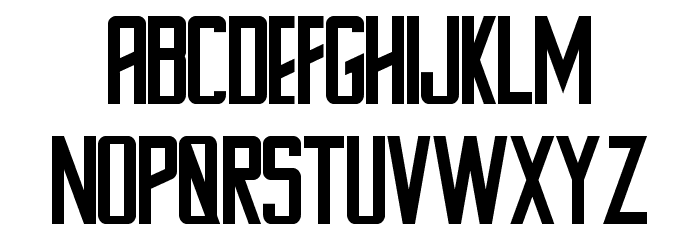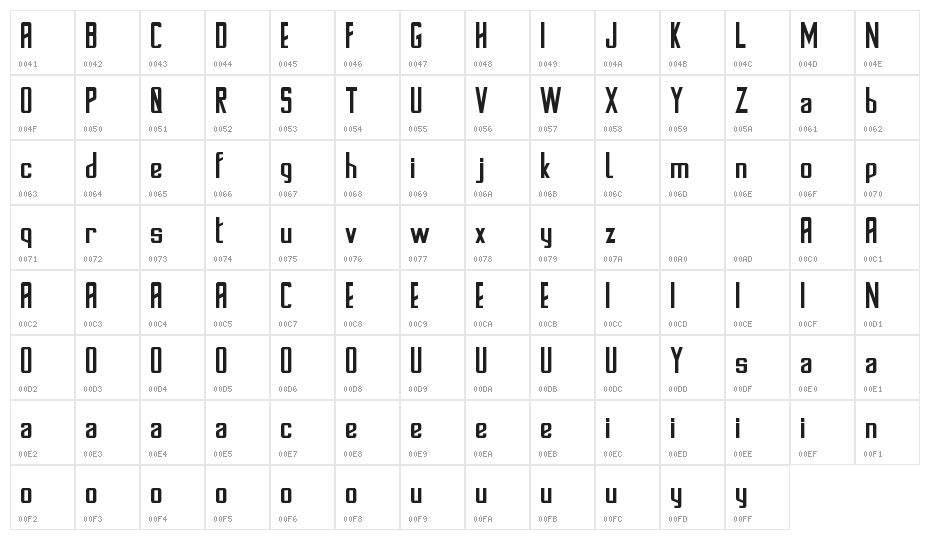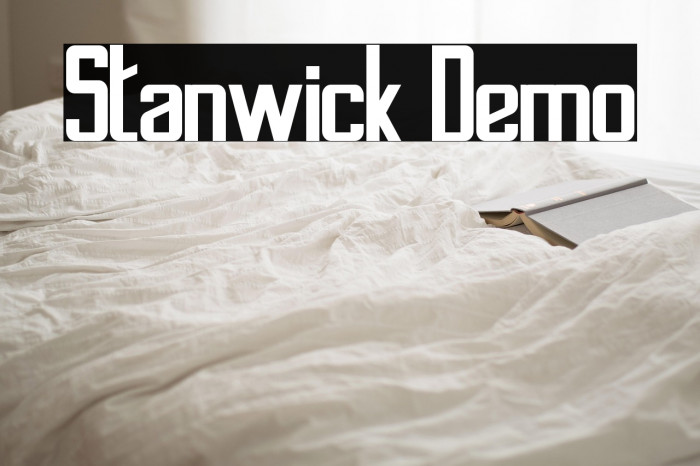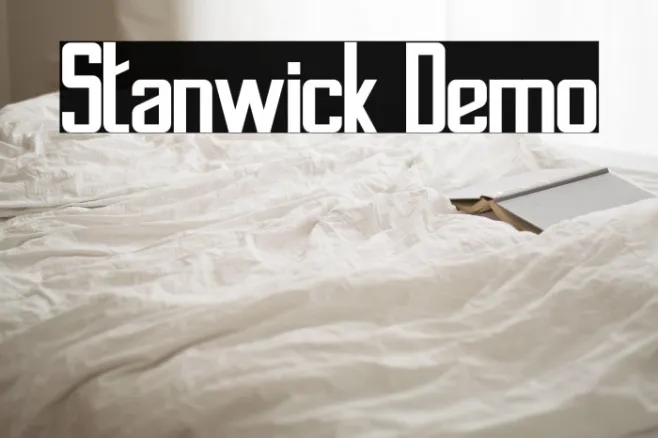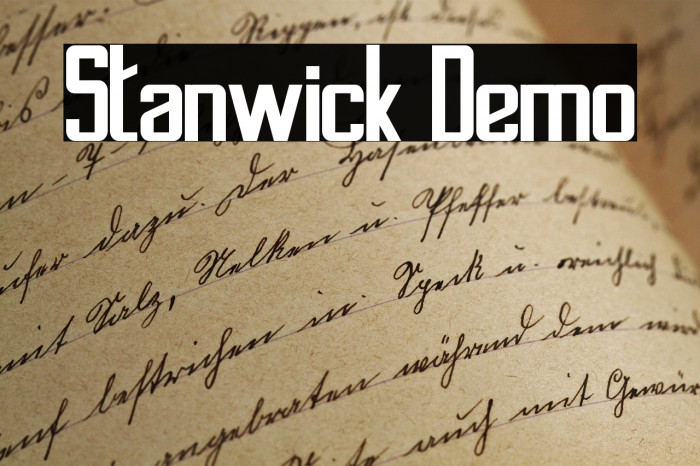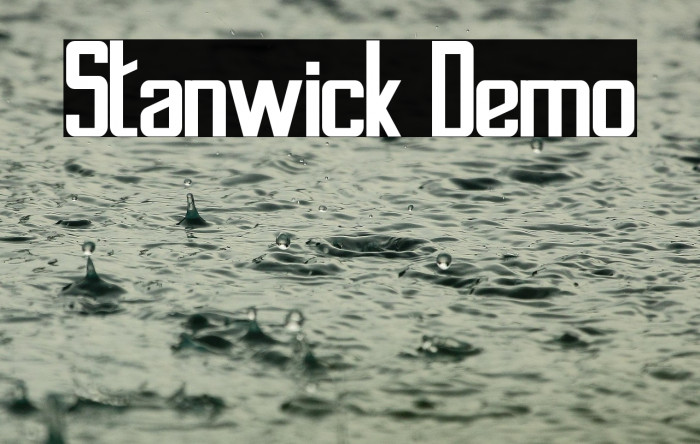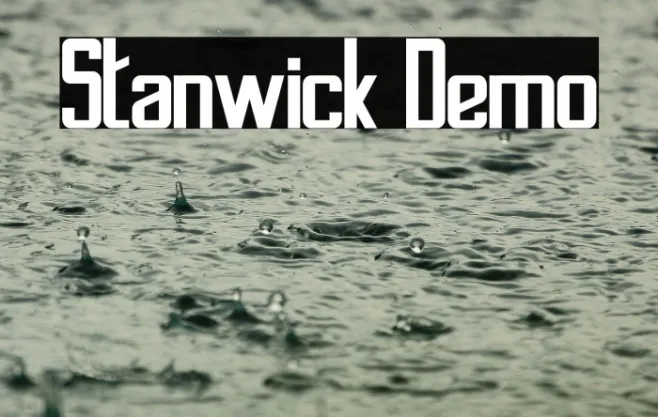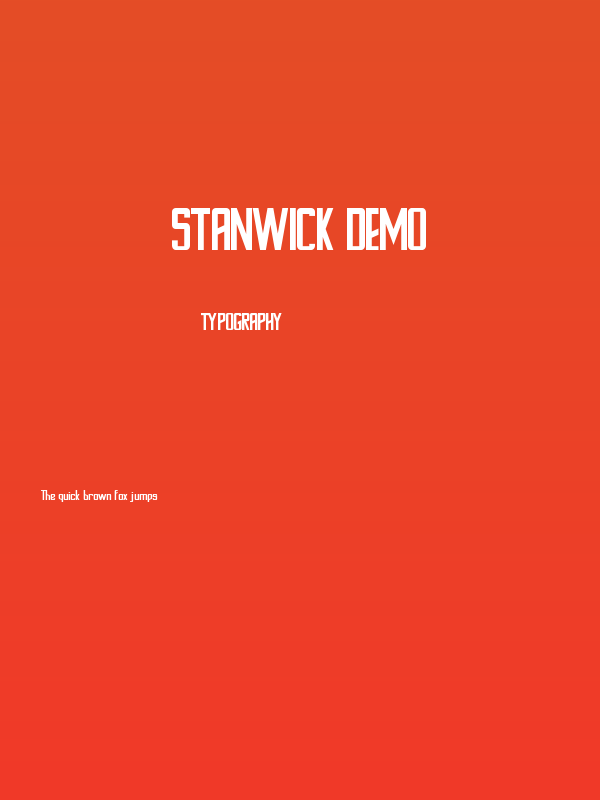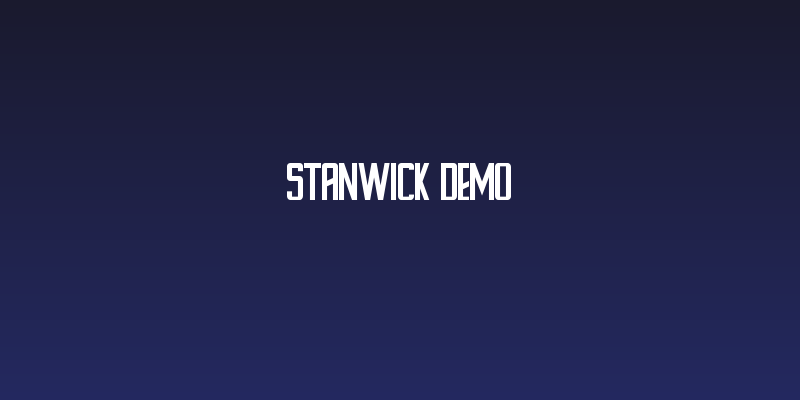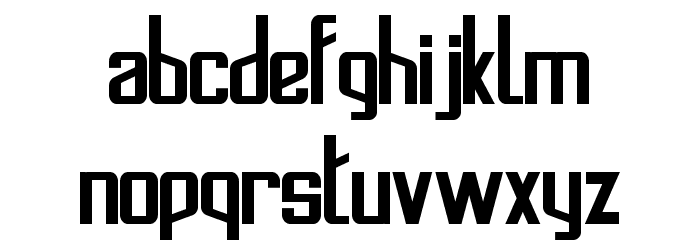
Stanwick Demo Font
Stanwick Demo Description
This font features a bold and geometric style with a modern flair. The uppercase letters are tall and narrow, with sharp angles and a strong presence. The lowercase letters maintain a similar geometric structure, offering a cohesive look across different cases. The design includes unique elements, such as the distinctive treatment of the letter 'Q' and the angular approach to 'R' and 'K'. The numbers and special characters follow the same design principles, ensuring consistency throughout. This font is well-suited for projects that require a contemporary and impactful visual statement.